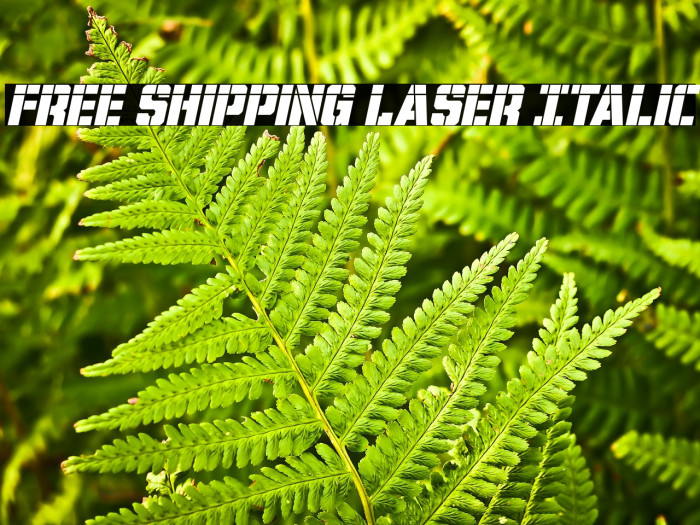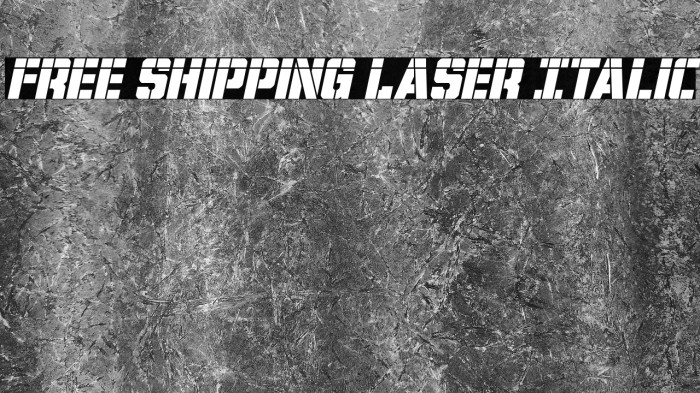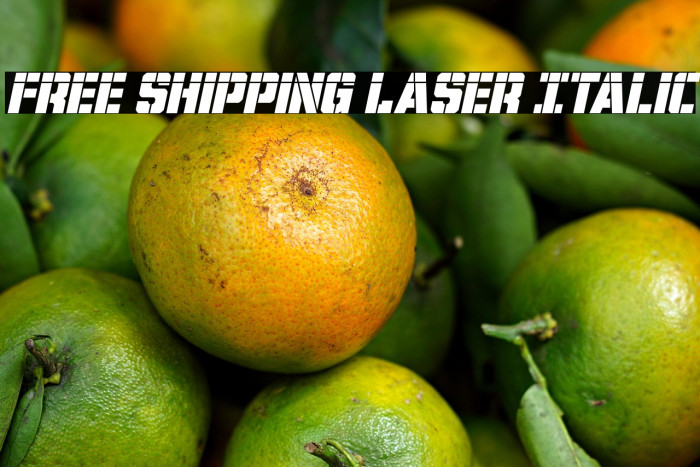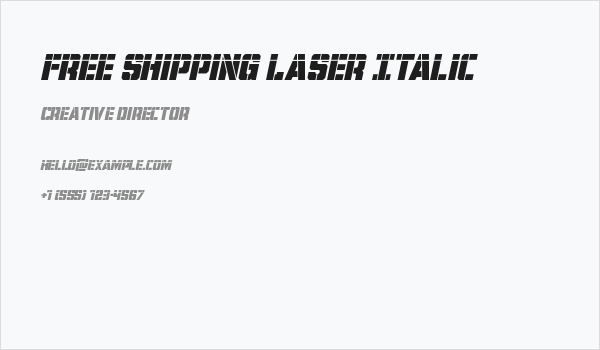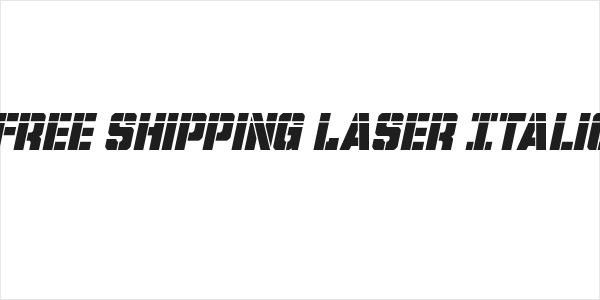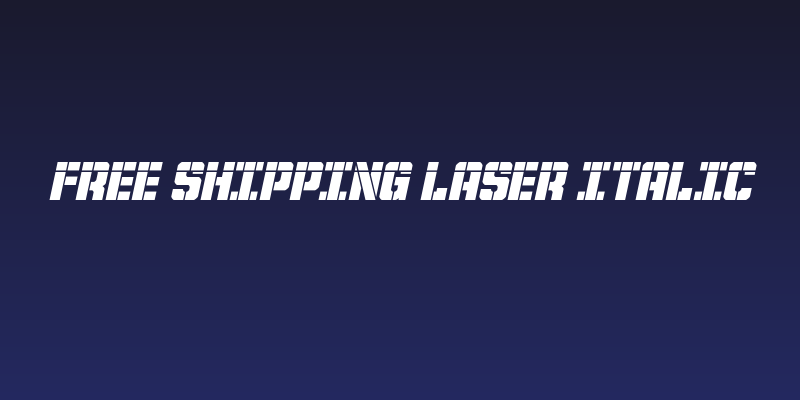
Free Shipping Laser Italic Font
Free Shipping Laser Italic Description
This font features a bold, futuristic design with a distinct italic slant, giving it a dynamic and forward-moving appearance. The characters are constructed with a stencil-like effect, incorporating sharp angles and geometric shapes. This creates a sense of speed and modernity, making it ideal for attention-grabbing headlines. The uppercase and lowercase letters maintain a consistent style, while the numbers and special characters follow the same design principles, ensuring uniformity across all text. The font's unique style is both eye-catching and versatile, suitable for a variety of creative applications.